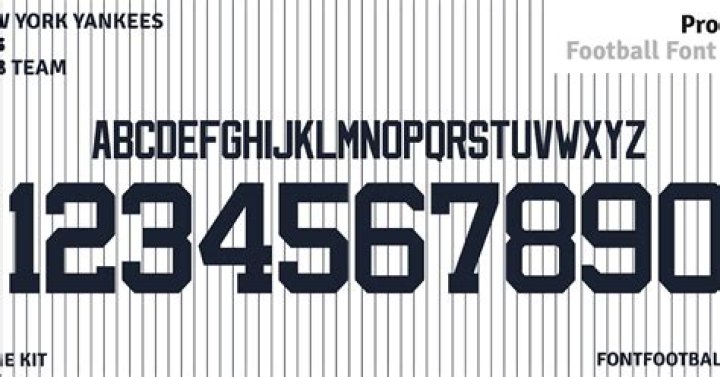
What font do the Yankees use?
What’s the font used for New York Yankees logo? The closest font we can find for New York Yankees logo is Machiarge Regular, which is a brush script font published by Flat-it.
What is the Yankee logo?
The primary logo, created in 1947 by sports artist Henry Alonzo Keller, consists of “Yankees” against a baseball, written in red script with a red bat forming the vertical line of the K, an Uncle Sam hat hanging from the barrel. Continued with the same font and the interlocking “NY” now in a dark blue color.
Who made the Yankees logo?
It is believed that the design was adopted by William “Big Bill” Devery, one of the club’s owners and a former chief in the NYPD. The “NY” migrated from the left sleeve to the left breast of the Yankees’ home uniforms from 1912-15, albeit in a larger version than is currently worn today.
What font is used in baseball?
Major League Baseball Font The font used for Major League Baseball logo is very similar to ITC Franklin Gothic Condensed Medium, which is a grotesque sans serif font designed by Morris Fuller Benton & Victor Caruso and published by ITC.
What is the name of the Dodgers font?
What type of font is Dodgers? Ans: Dodgers font is known as Nexa Rust Script S 1 by Fontfabric.
What font is used on the back of baseball jerseys?
Varsity is a free font specifically created with sports design in mind. If you’re looking for a classic style to get those names on the rear of your jersey, Varsity might be the font on a budget you’ve been looking for. Featuring a classic look that can help sports ads and lettering on jersey design really stand out.
What font is the Washington Nationals W?
The font used for Washington Nationals logo is Neutraface Text Bold, which is a geometric sans serif font designed by Christian Schwartz and published by House Industries.
What kind of font do the New York Yankees use?
@ Vins: sorry. MLB AL is the font you would probably need. All you need to do is type an uppercase or lowercase p. The logo appears. This is the current logo of the Yankees. Oh. Okay. I didn’t realize that you meant the style of the logo. All times are CEST. The time is now 09:20
When did the New York Yankees logo come out?
The closest I can find to the logo above (minus the bat and hat) is Belinda. One of the most recognized logos in sports, the print was developed by renowned graphic artist Henry Alonzo Keller in 1947, and has undergone minor modifications over the years.
When did the New York Yankees start wearing black uniforms?
Special uniforms and caps. In 1996, the Yankees wore the uniforms of the New York Black Yankees on a day celebrating Negro league baseball. In 2012, the Yankees wore replicas of their 1912 uniforms, with an alternate interlocking N-Y logo and without numbers, for a game celebrating Fenway Park ‘s centennial.
What is the font used for the New York Yankees?
The closest font we can find for New York Yankees logo is Machiarge Regular, which is a brush script font published by Flat-it.
What font does the New York Giants use?
It seems that New York Giants logo uses a display sans serif font and the font is yet to be identified.
What font do the New York Knicks use?
NBA Knicks also known as New York Knicks font is a fancy, old-school font designed by Eriq P. Jaffe. The font is licensed as Free. The font is free for both personel and commercial usages. In doubt please refer to the readme file in the font package or contact the designer directly.
What is the New York font?
New York is a transitional serif typeface designed in 1983 for the Macintosh computer by Susan Kare , and re-worked in 1988 by Charles Bigelow and Kris Holmes . The typeface was the standard bitmap serif font for the early Macintosh operating systems. Originally titled “Ardmore”, it was renamed to New York…